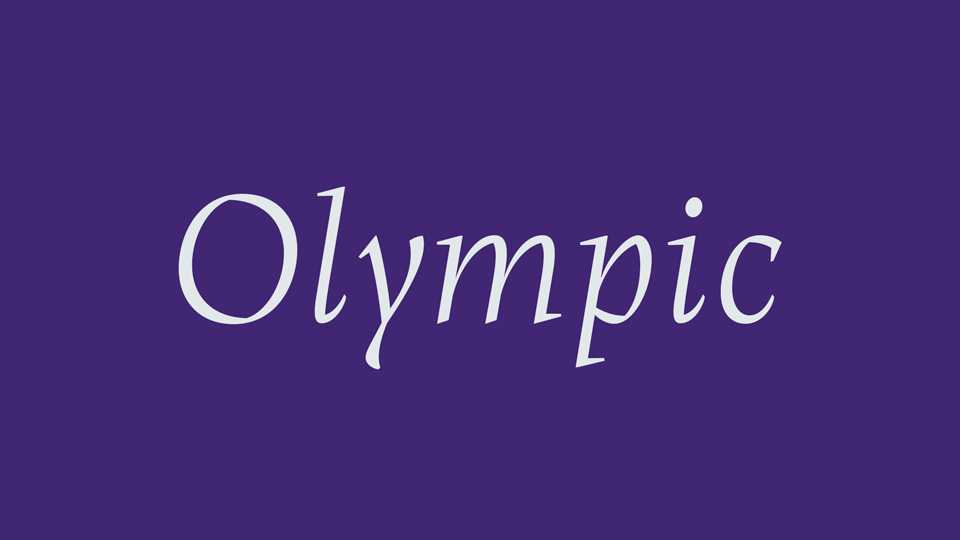
Download Olympic font, is an elegant display typeface inspired by Warsaw’s signage and typography from the 70’s. Olympic font is modern and universal, but with a dash nostalgia for the Warsaw’s style of the past.
Designer: Ludka Niezgoda